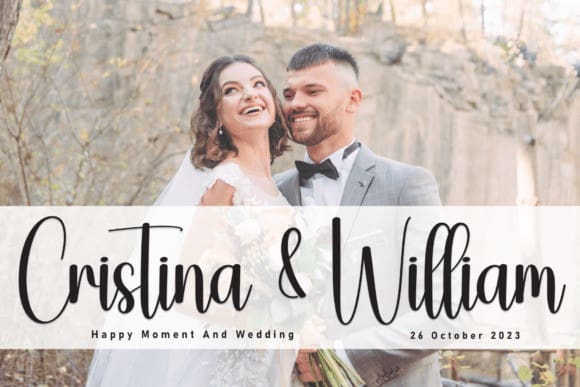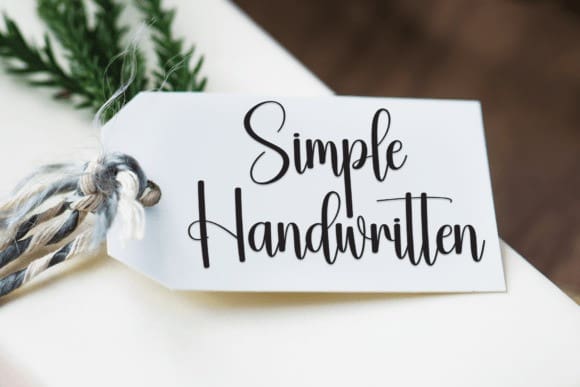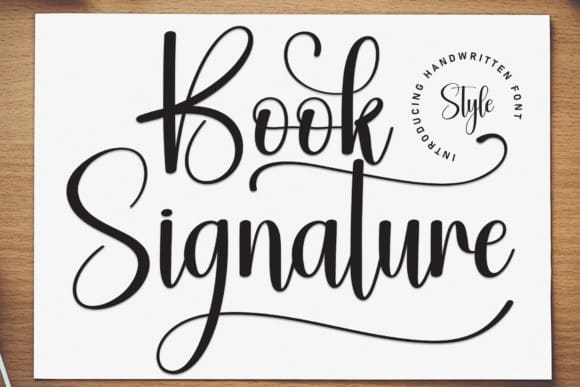
Book Signature Font
Book Signature Font is a lovely and timeless handwritten font. It is the best choice for creating eye catching logos, branding and quotes. Every letter has a unique and beautiful touch, which will make your design come alive!